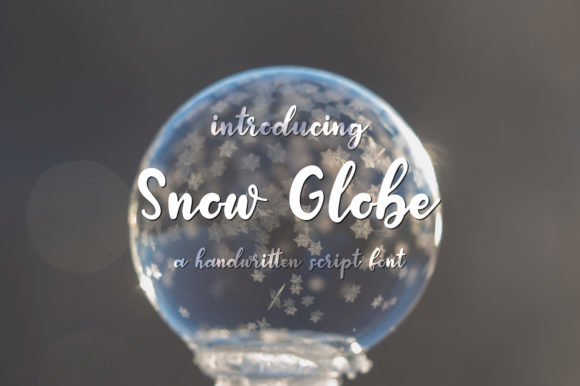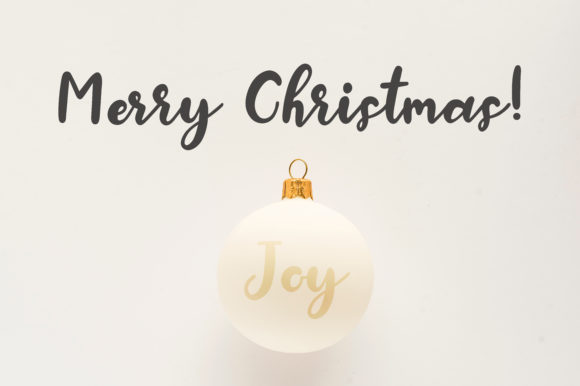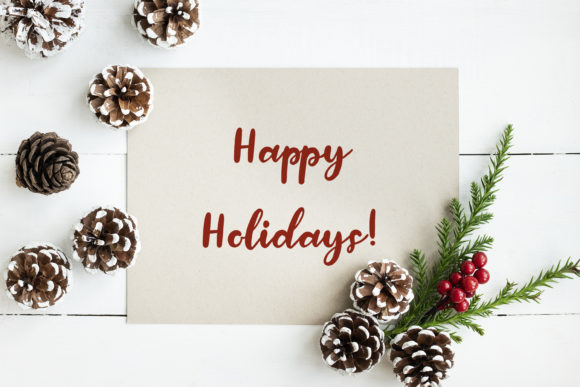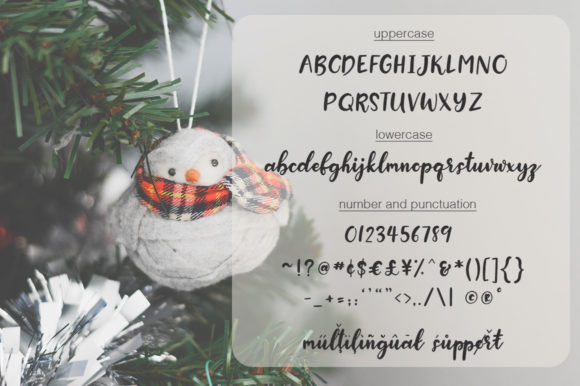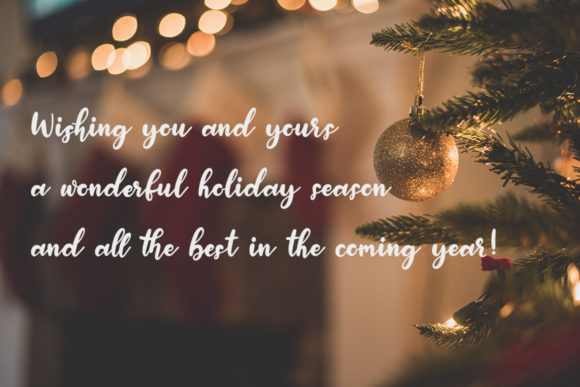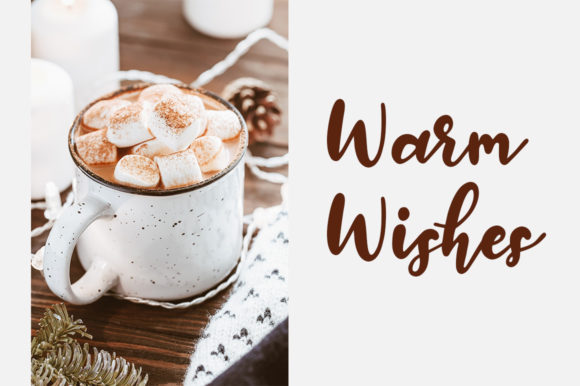
About Snow Globe Font
Introducing “The Snow Globe,” a delightful and chubby handwritten script font designed to bring the fun and whimsy of a snow globe to your designs. This font is not just a typeface; it’s a playful design asset crafted with rounded strokes and edges, capturing the essence of joy and festivity. “The Snow Globe” is perfect for holiday cards, invitations, stationery, branding, and it also adds a cute touch to baby shower invitations.
The rounded strokes and edges of “The Snow Globe” create a charming and cute appearance, resembling the playful bounce of letters, just like the enjoyment of playing with a snow globe. This font is designed to evoke a sense of fun and lightheartedness, making it ideal for spreading joy during the holiday season or celebrating the arrival of a little one.
Its versatility allows “The Snow Globe” to adapt seamlessly to different design contexts. In holiday cards and invitations, the font brings a festive and cheerful vibe. For stationery and branding, it adds a playful touch that resonates with a wide audience. Baby shower invitations benefit from the chubby and cute look, creating a sweet and endearing atmosphere.
Whether you’re crafting a winter-themed design or celebrating a new arrival, “The Snow Globe” is a design companion that adds a touch of joy and whimsy to your creative projects.
In summary, “The Snow Globe” is more than just a font; it’s a design asset that brings a fun and chubby handwritten script style to your holiday and baby shower designs. Embrace its playful look for cards, invitations, branding, and more, and let “The Snow Globe” infuse your designs with the delightful spirit of a snow globe.